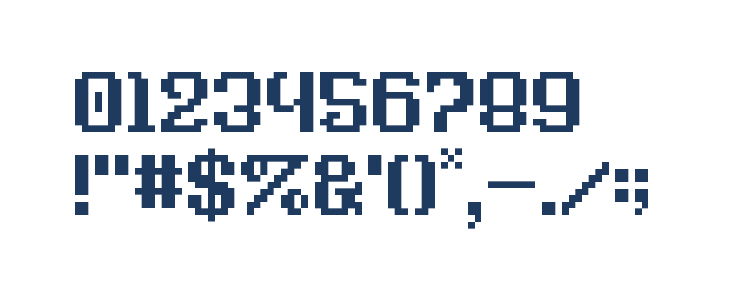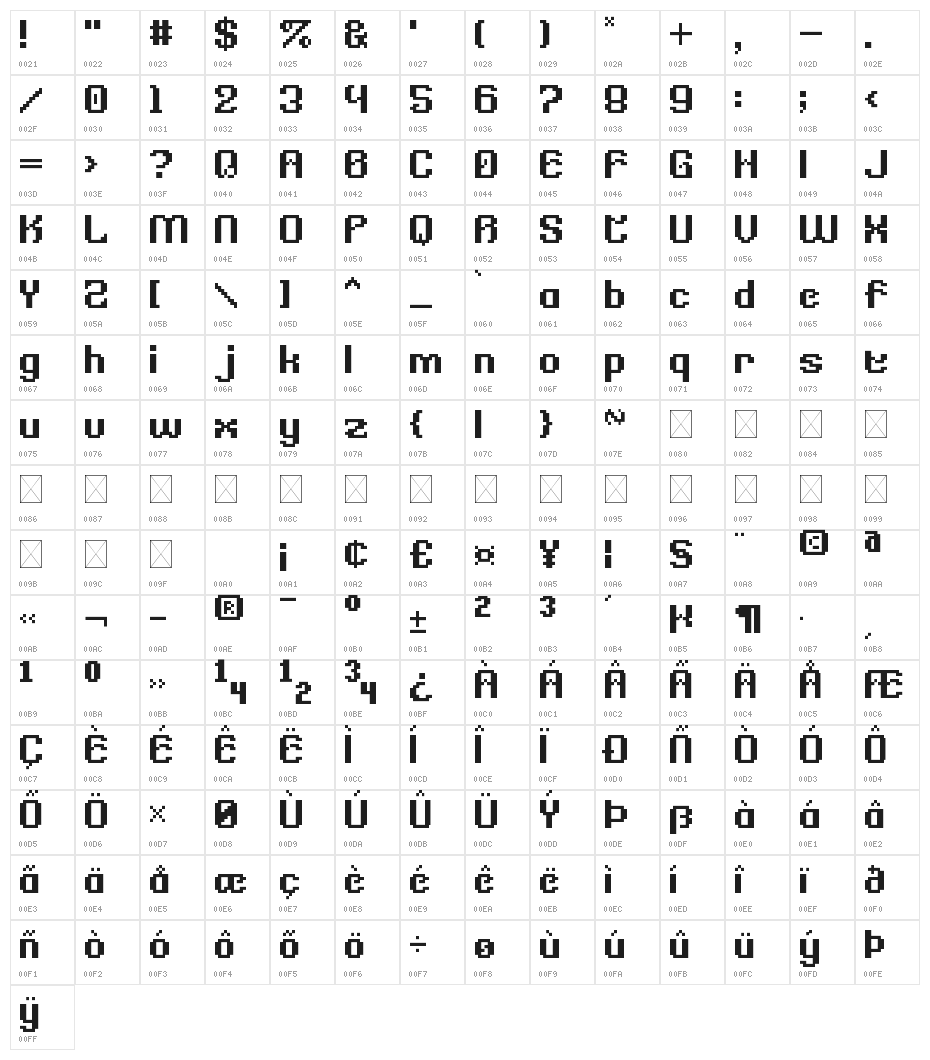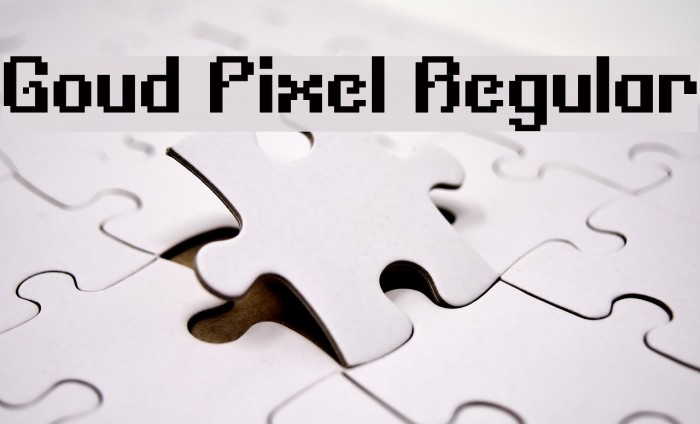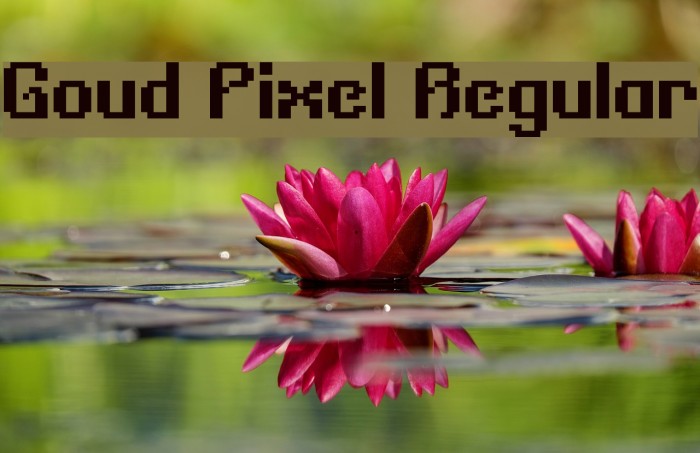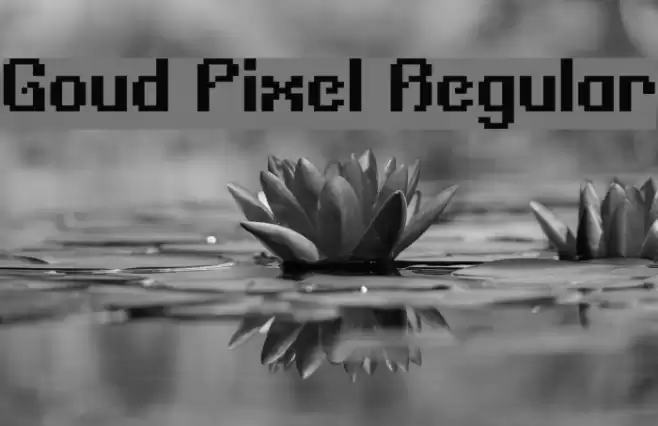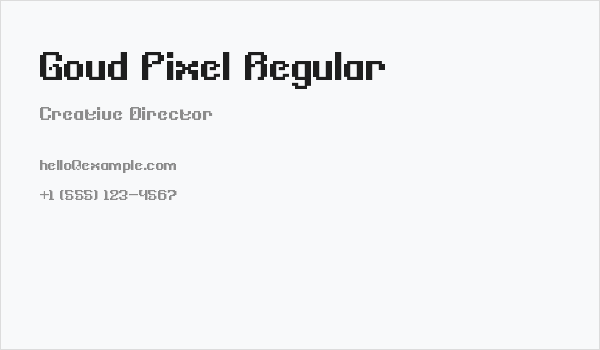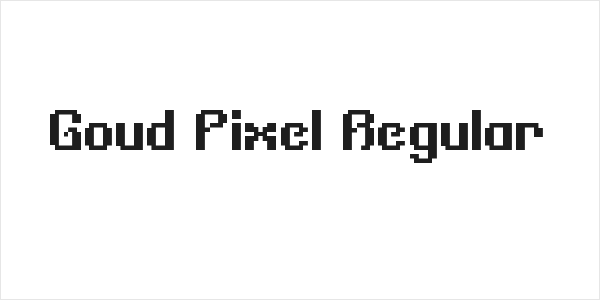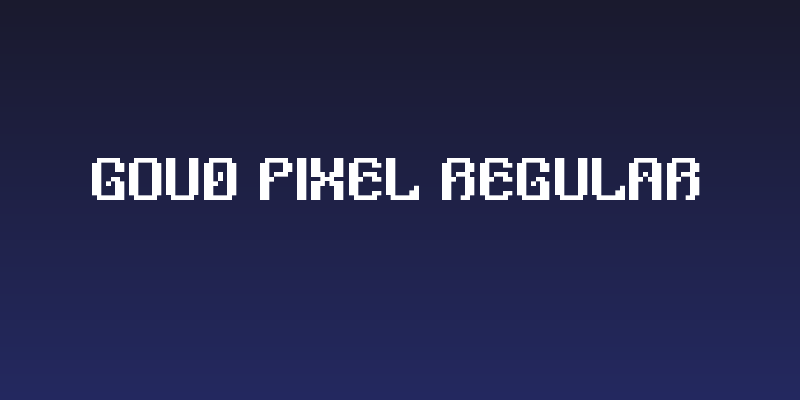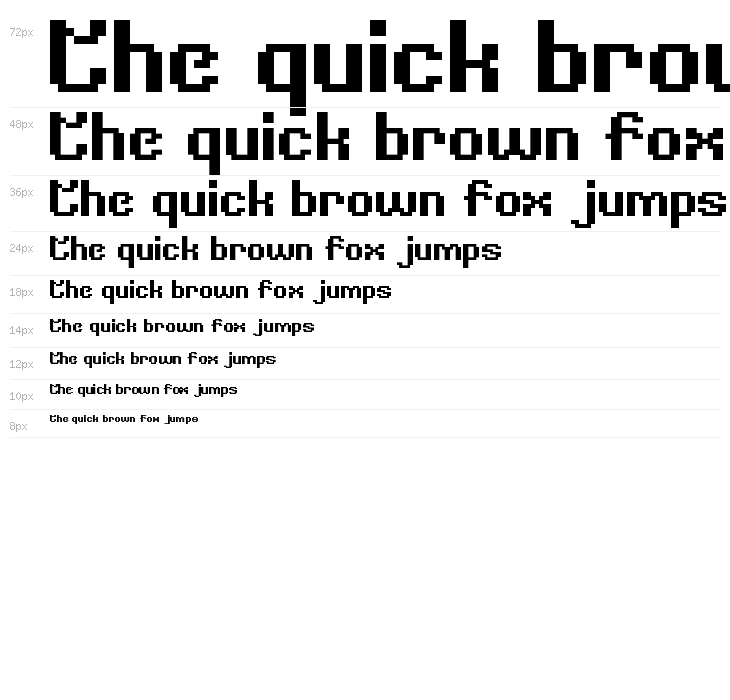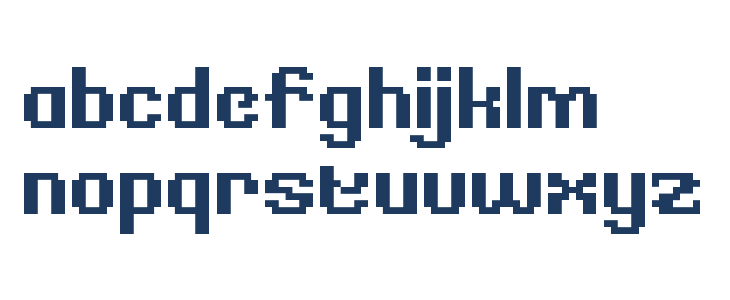
Goud Pixel Regular Font
Goud Pixel Regular Description
This font embodies a pixelated, retro aesthetic reminiscent of early video game graphics. Each character is constructed with a blocky, grid-like structure, giving it a distinct digital feel. The uppercase and lowercase letters maintain a consistent height and width, contributing to a uniform appearance. The numerals and special characters follow the same pixelated style, ensuring cohesion across all glyphs. This font's nostalgic charm is perfect for projects that aim to evoke a sense of vintage digital culture.
A pixelated, retro font with a blocky, digital aesthetic from Uncategorized fonts.
- Proposed Projects: Ideal for video game design, retro-themed posters, digital art projects, and any creative work that seeks to capture the essence of early computer graphics.
- Overall Style: Vintage
- Use Case: Logos, Headlines, Digital Art